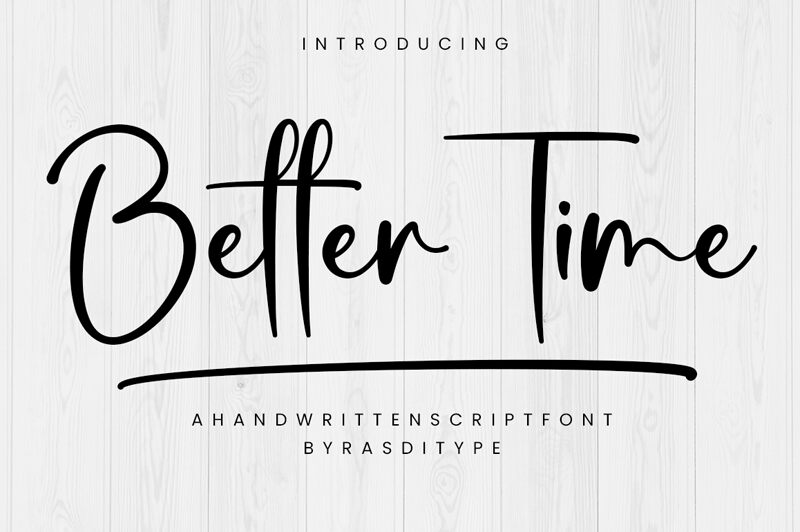
Better Time
Better Time, designed by Ramli Setiadi, embodies a seamless blend of personal touch and professional flair. This semi-light handwritten font boasts an aesthetic appeal that is both approachable and elegant. With its fluid strokes and subtle variation in line weight, Better Time captures the essence of handcrafted artistry on a digital canvas.
The gentle curves and clean lines lend themselves to versatility in design, making it an excellent choice for invitations, branding projects, and editorial content where a hint of warmth is desired. Its readability is as impressive as its style-each character crafted with clarity in mind.
Whether you're looking to add a personal note to your creative endeavors or aiming for a design that stands out with its humanistic traits, Better Time offers that bespoke charm without sacrificing sophistication.